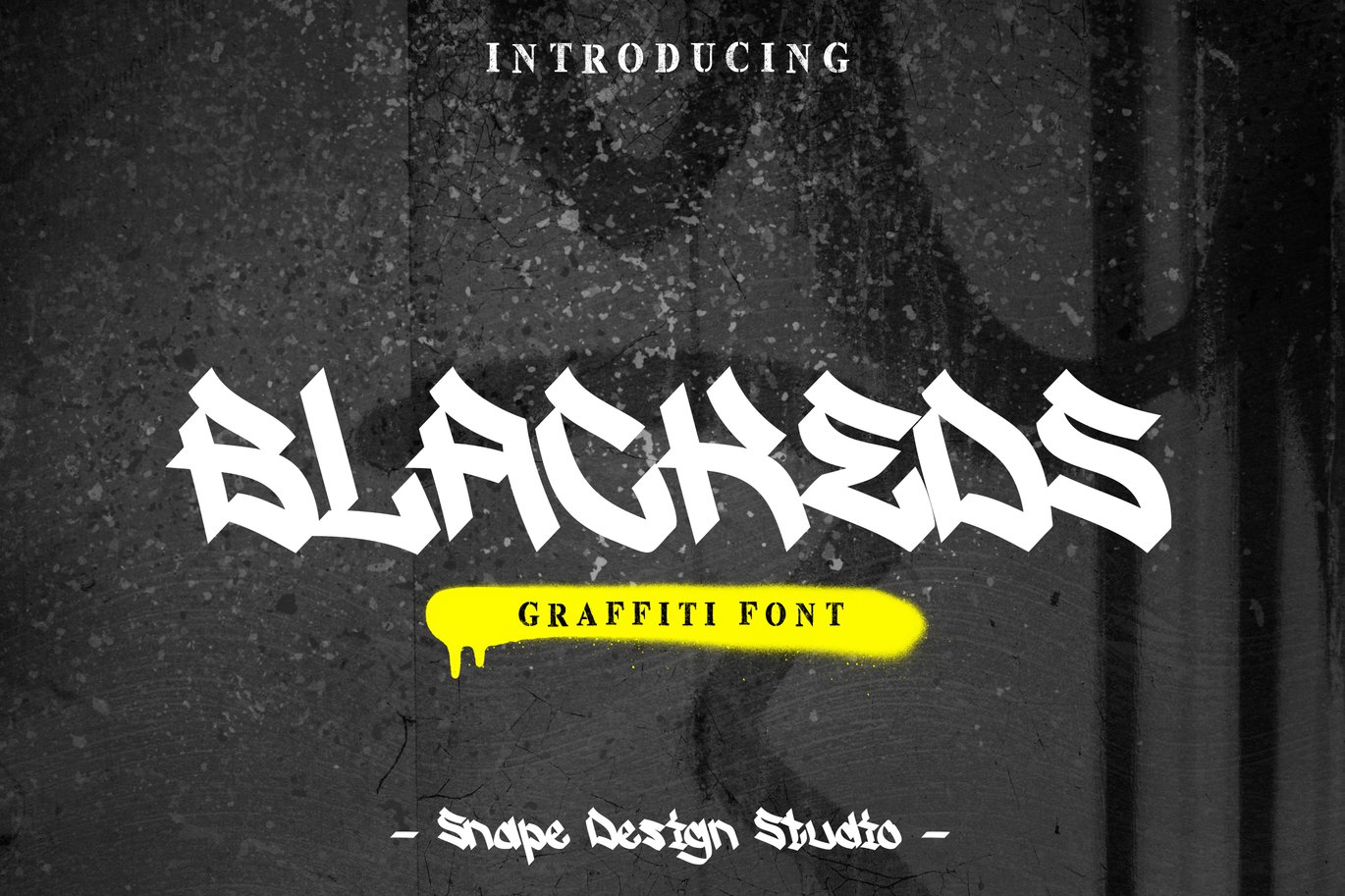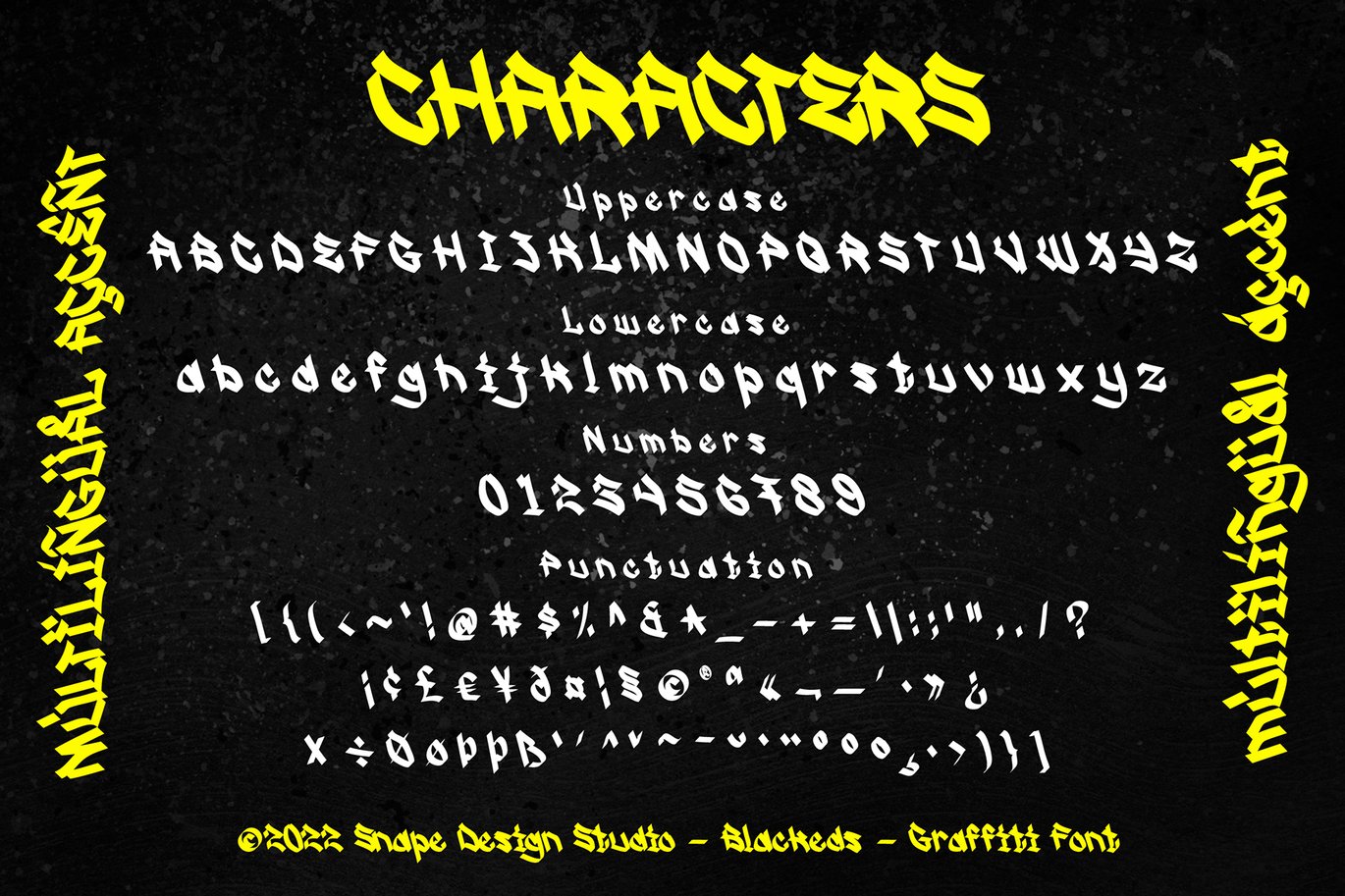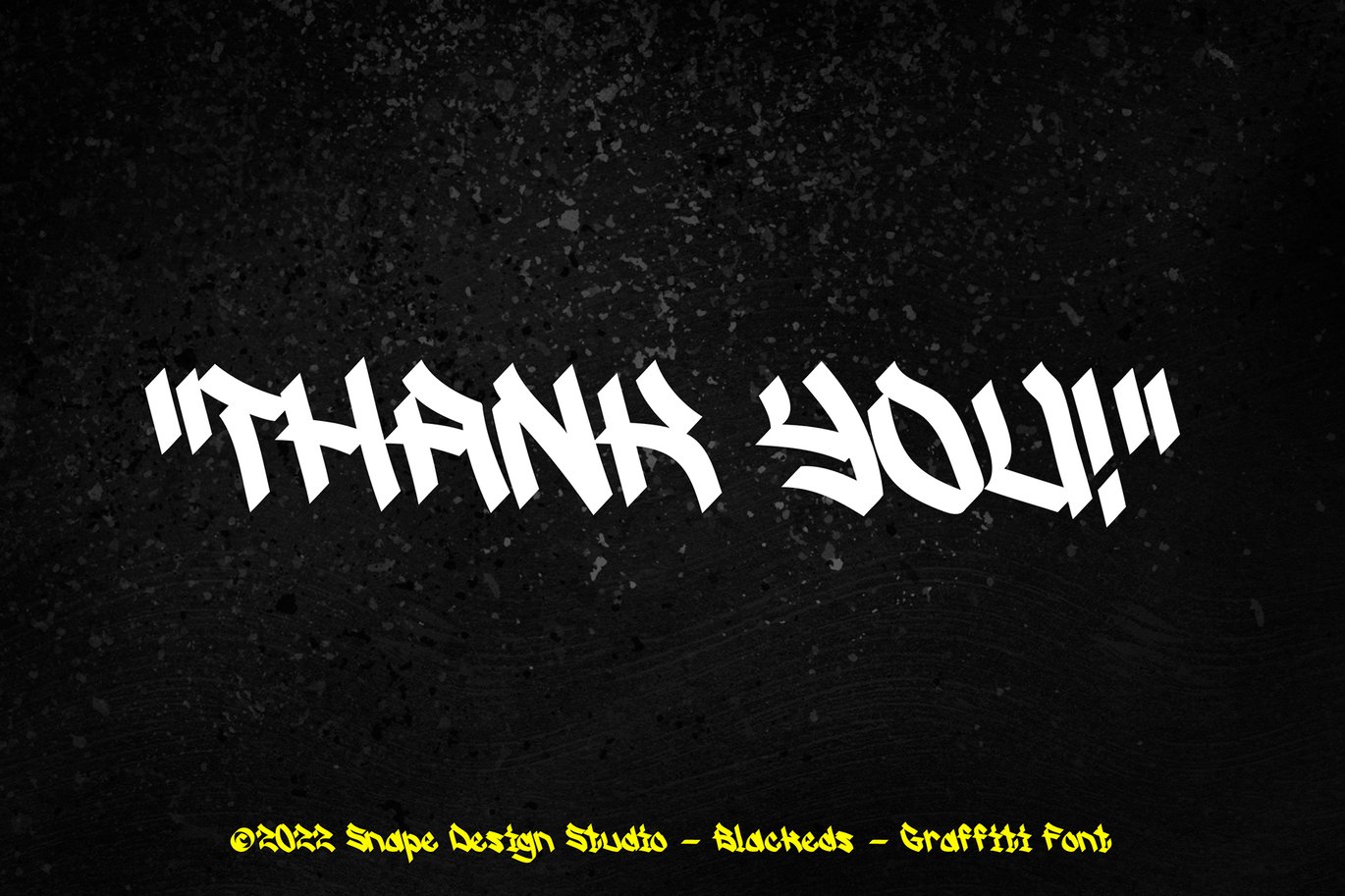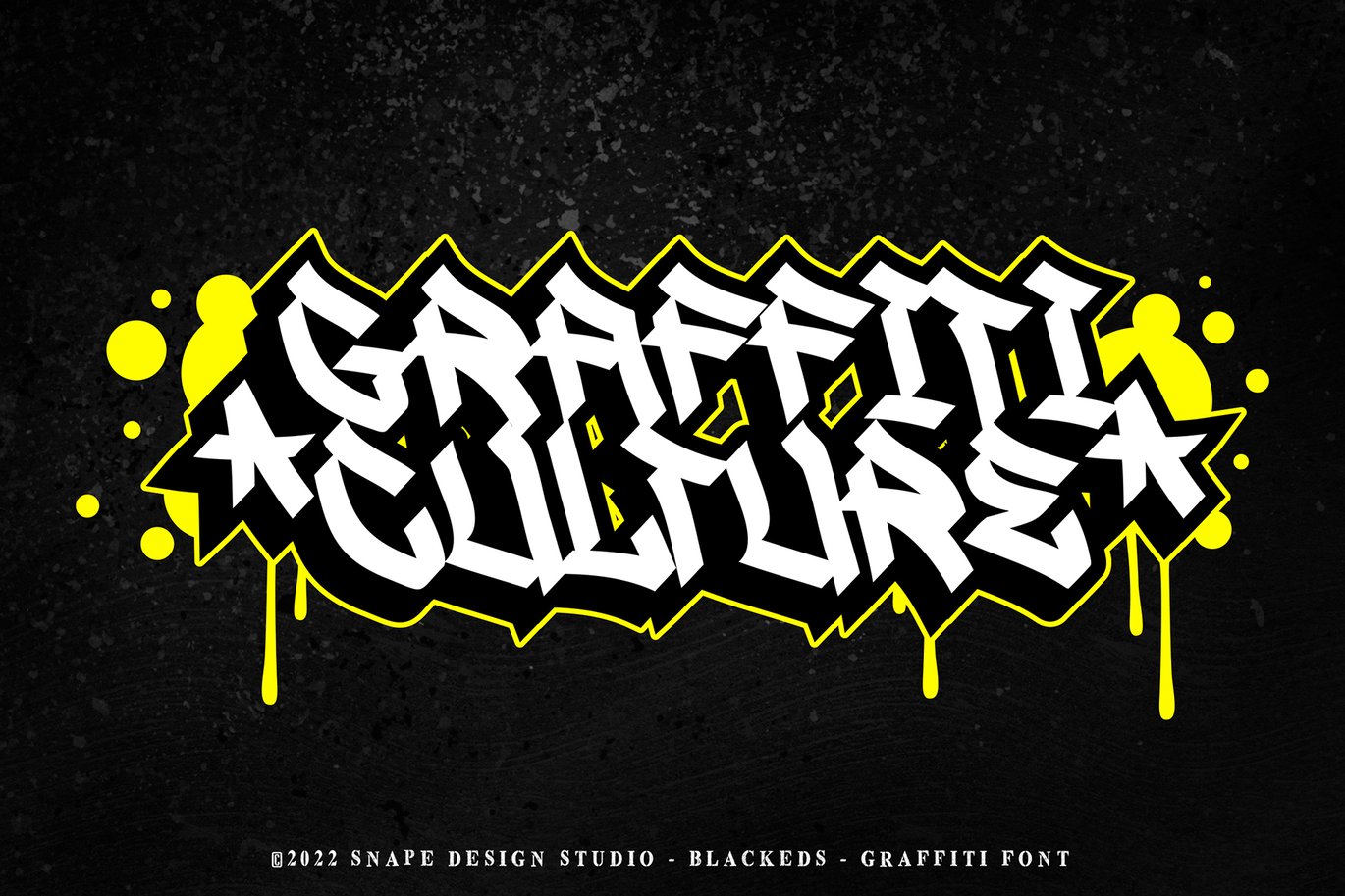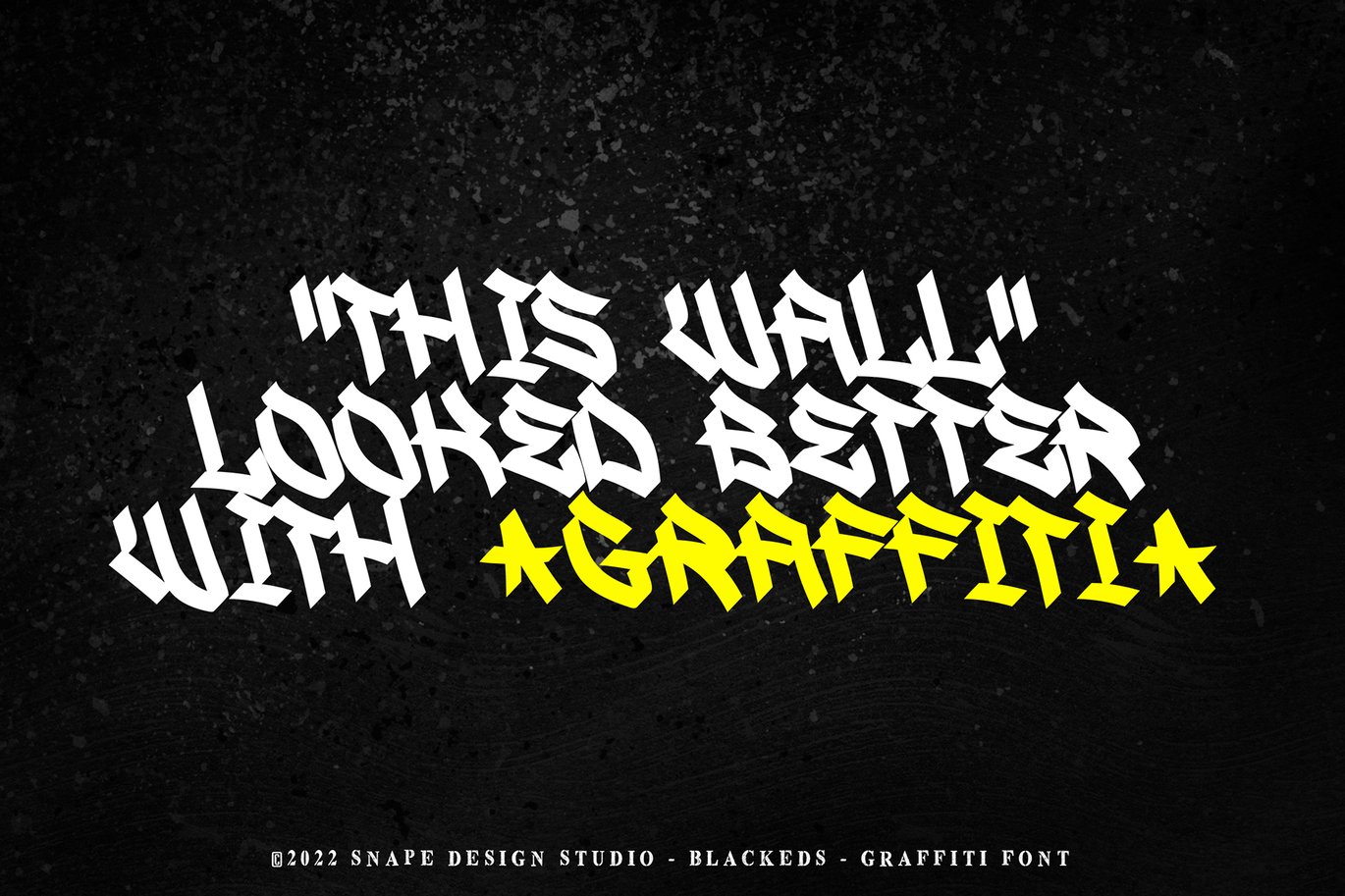
Blackeds – Graffiti Font
BLACKEDS is a display font inspired by typical street art calligraphy style or graffiti tag, suitable for your design related to it.
Also suitable for movie, documenter, film, logo, poster, game, book cover, headlines, title and many more projects. Add this font to your creative ideas and notice how it will make them stand out!
Lowercase
Number
Punctuation